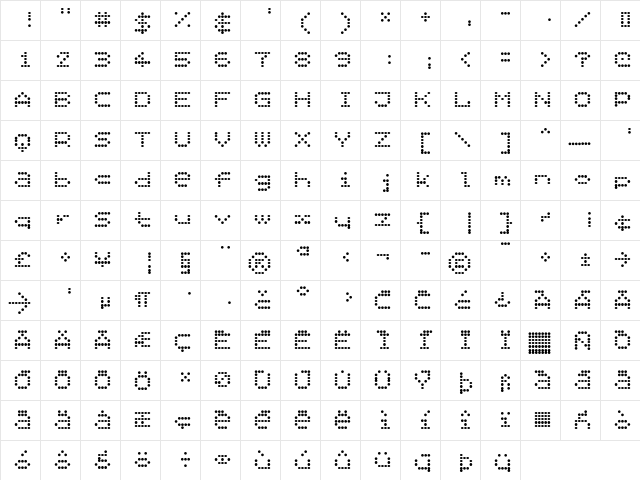
Semafor Regular
Design Context for Semafor Typeface
Semafor takes a measured approach to typography — its balanced proportions and neutral character make it a reliable workhorse for both digital and print work.